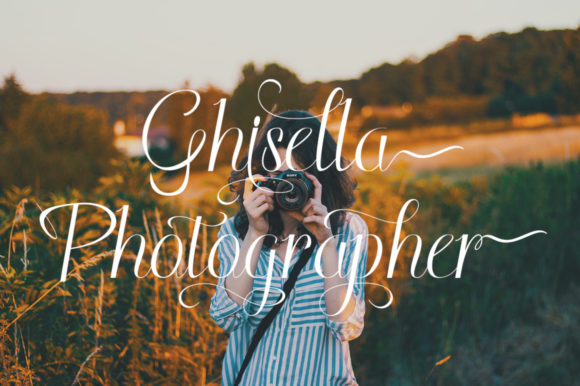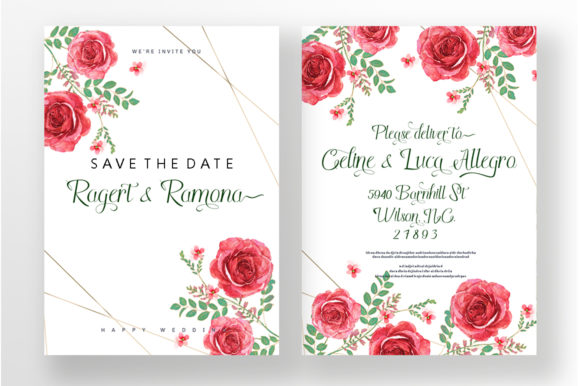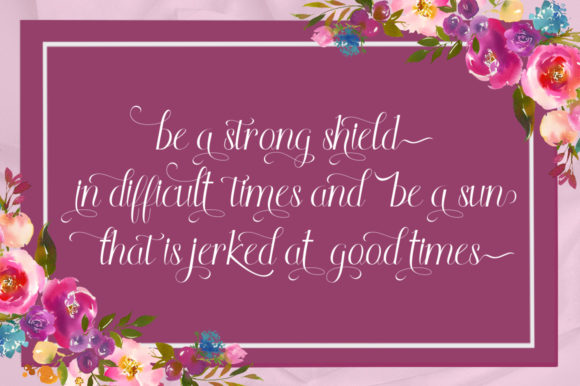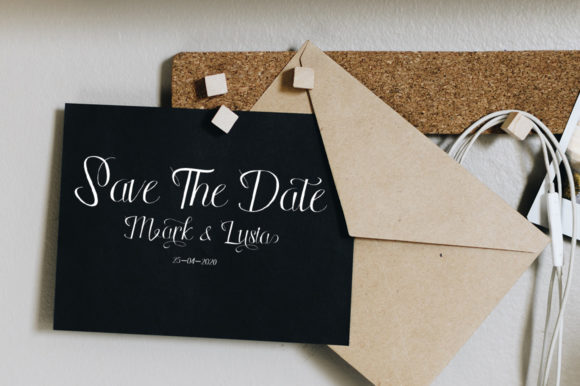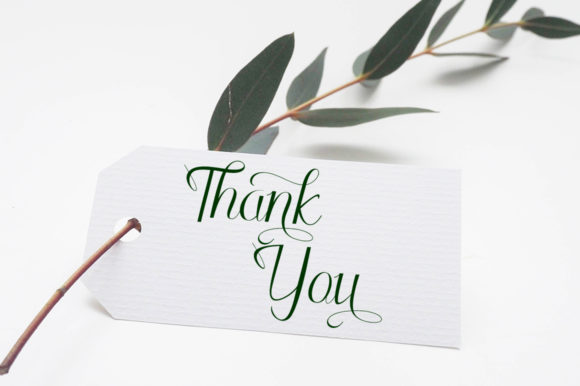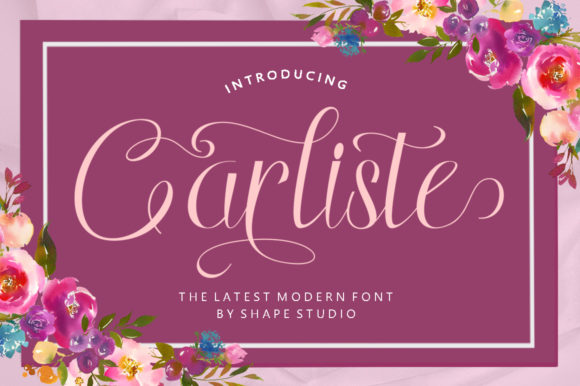
Discover the Elegance of Carliste Font: Elevate Your Design Projects
In the realm of typography, few fonts manage to strike a balance between classic elegance and unique flair. Carliste Font is one such typographic marvel that has captured the attention of designers and crafters alike. Inspired by the timeless beauty of classic typography, Carliste brings its own distinctive style to the table, making it a versatile and sought-after font for a wide range of design projects.
The Essence of Carliste Font
Carliste is more than just a font; it’s a statement piece. Its roots in classic typography are evident, yet it carves out its own niche with a unique aesthetic that is both sophisticated and approachable. This fantastic script font is not just a pretty face; it’s highly functional, designed to adapt seamlessly across various mediums and applications.
One of the standout features of Carliste Font is its incredible versatility. It’s best suited for headlines of all sizes, where its elegant strokes and classic undertones can truly shine. However, its adaptability doesn’t stop there. Carliste also excels in blocks of text that require both maximum and minimum variations, ensuring that it remains legible and visually appealing, even in more complex layouts.
Applications Across Different Mediums
Whether you’re working on a web project, print material, moving images, or any other form of visual communication, Carliste Font proves to be an excellent choice. Its ability to look spectacular across different mediums is a testament to its design and flexibility. For web designers, Carliste offers a way to add a touch of sophistication and personality to digital platforms. For print designers, it provides an elegant solution for brochures, posters, and business cards that demand a high level of typographic excellence.
Why Choose Carliste Font?
There are several reasons why Carliste has become a go-to font for designers and crafters:
- Elegant and Unique Style: Carliste brings a unique blend of classic and contemporary styles, making it stand out in any design.
- High Versatility: Its adaptability across different types of projects and mediums makes it a valuable asset for any designer.
- Legibility: Despite its elegant and sometimes intricate strokes, Carliste maintains a high level of legibility, making it suitable for both headings and body text.
- Timeless Appeal: Unlike trends that come and go, Carliste’s classic undertones ensure it remains relevant and stylish for years to come.
How to Use Carliste Font Effectively
To make the most out of Carliste Font, consider the following tips:
- Pair it Wisely: Combine Carliste with complementary fonts to create visual interest and hierarchy in your designs.
- Experiment with Sizes: Don’t be afraid to use Carliste in various sizes to create emphasis and guide the viewer’s eye through your design.
- Consider the Context: Think about the message you want to convey and choose weights and styles of Carliste that match the tone and mood of your project.
Carliste Font is a remarkable addition to any designer’s toolkit. Its unique blend of classic inspiration and modern flair, combined with its versatility and legibility, make it an ideal choice for a wide range of projects. Whether you’re a seasoned designer or a crafter looking to elevate your work, Carliste offers a way to add elegance, sophistication, and a touch of personality to your designs. With Carliste, you can ensure that your typography not only complements your work but also stands out in its own right.